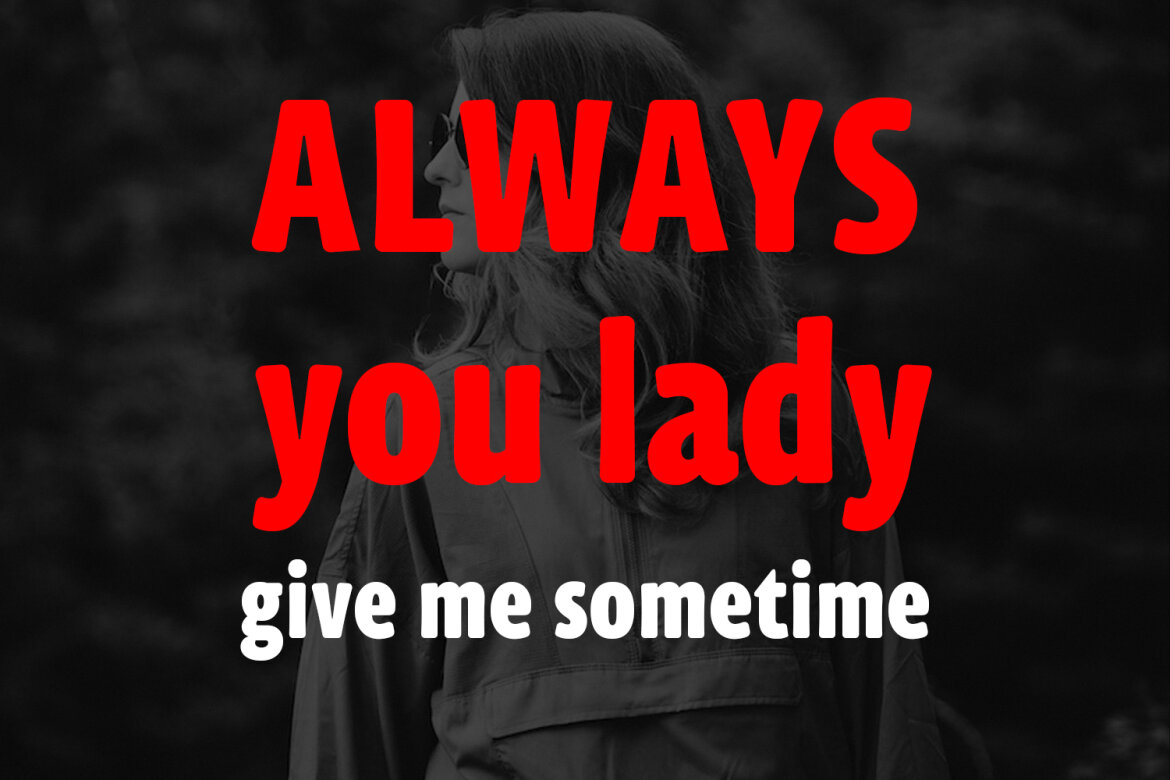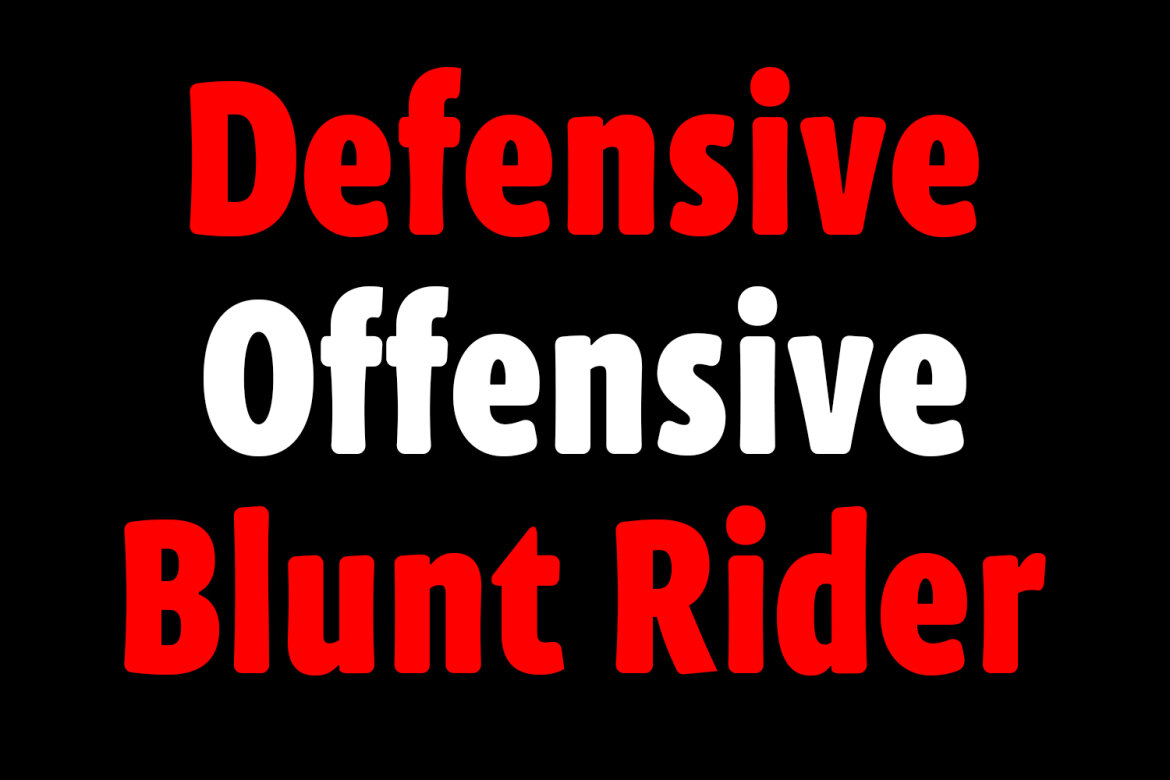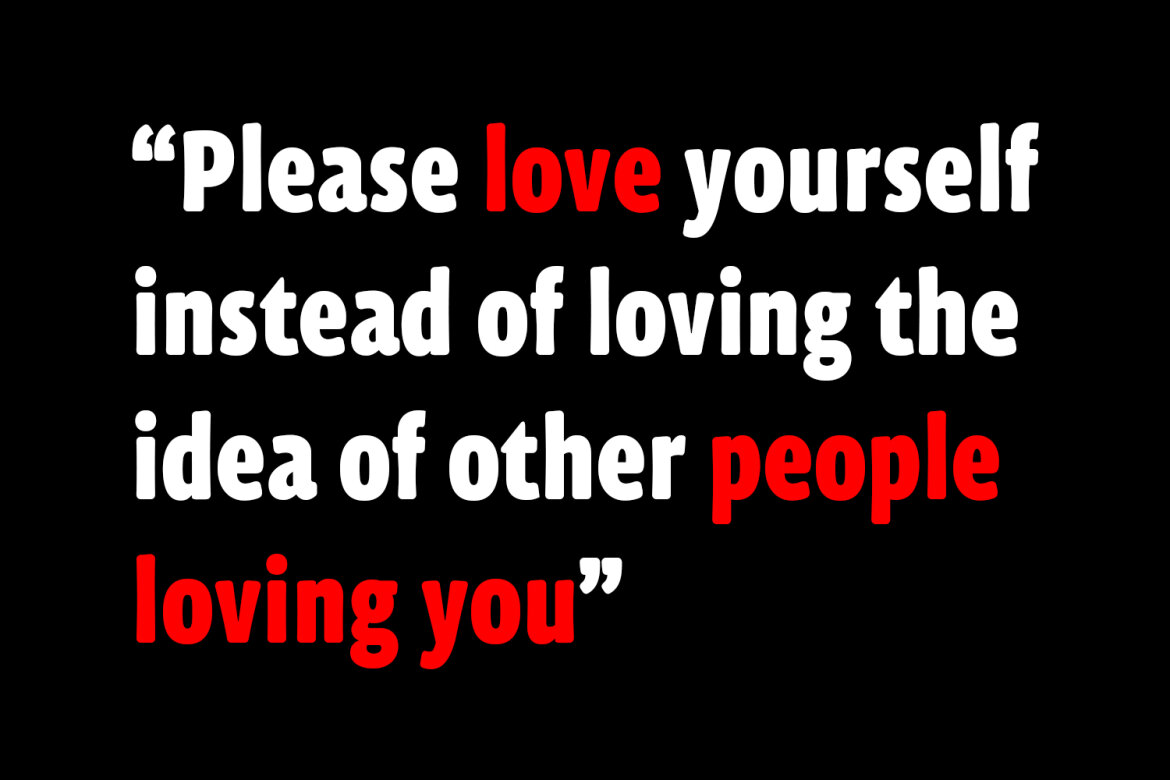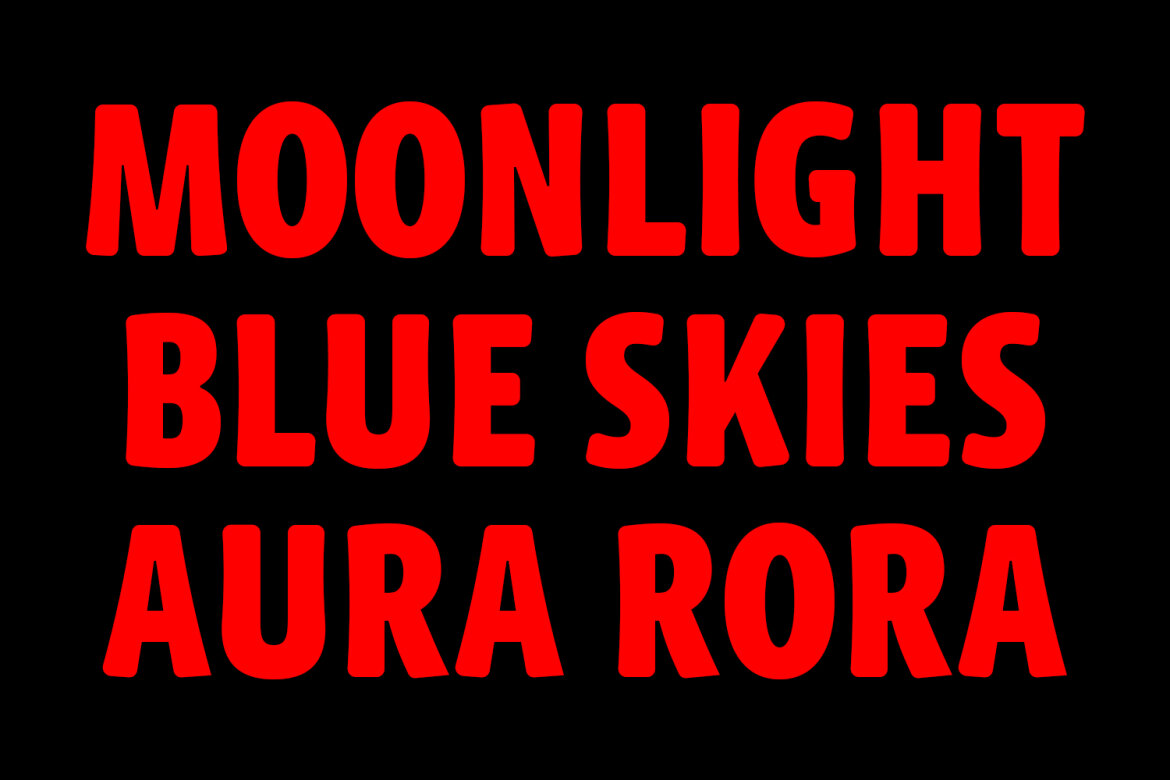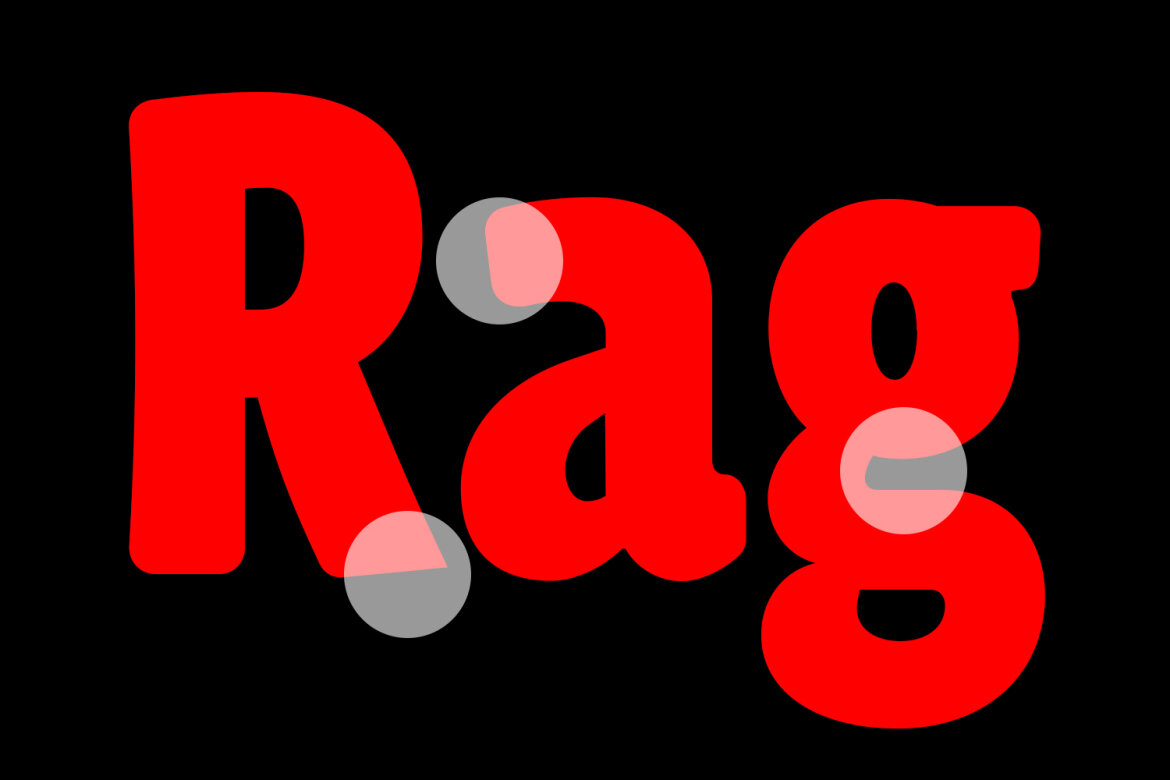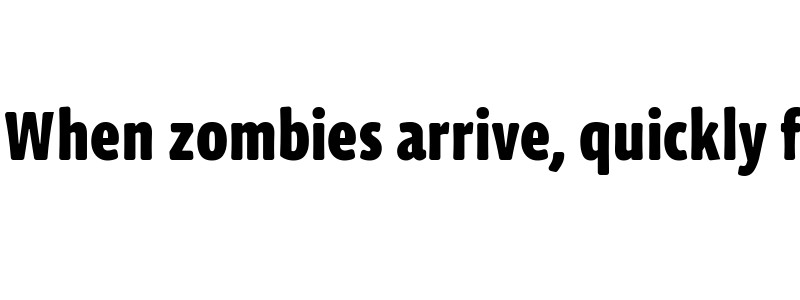
Bitgros Bold Rounded Sans FREE Font
Bitgros
Bitgros is a classic bold sans serif Display font. Bold stroke, fun character with a bit of ligatures and alternates. To give you an extra creative work. Bitgros font support multilingual more than 100+ language. This font is good for logo design, Social media, Movie Titles, Books Titles, a short text even a long text letter and good for your secondary text font with script or serif. Make a stunning work with Bitgros font.